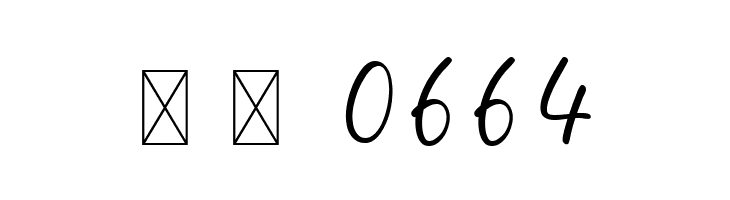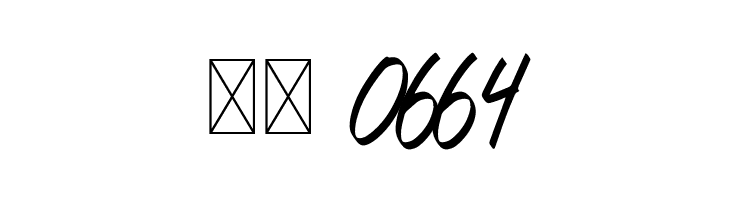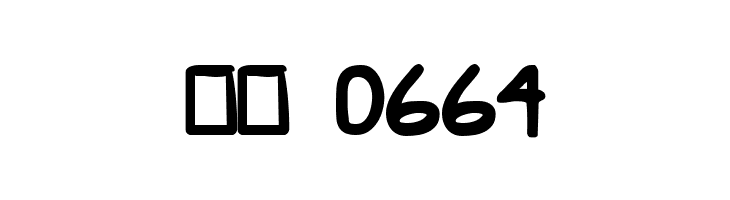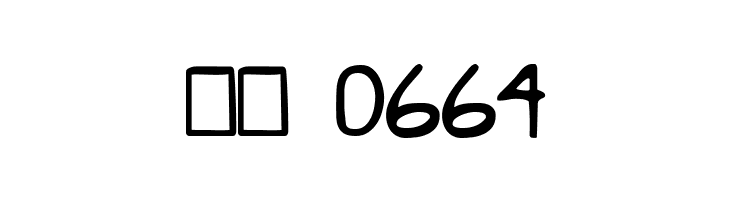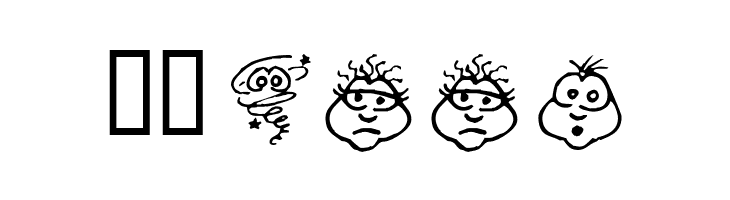
• Killing Me Free Trial
• Kilroy Was Here JL
A whimsical font featuring variations of the 'Kilroy Was Here' doodle for each character.
• Kimberley Alternate
• Kims Handwriting
• Kims Toons
Hand-drawn cartoon faces and animals in a dingbat style.
• KimsHand
A playful, handwritten font with smooth, rounded edges and a casual feel.
• KimsHand-Bold
A bold, playful handwritten font with rounded, consistent strokes.
• Kinderkinder
A decorative font made of cartoon children forming each character.
• KinderKinderAbsurdo
A decorative font made of cartoon children forming each letter and symbol.
• Kinderkram
A playful, hand-drawn font with cartoon-like characters.
• KinderUndAndereEngel
Whimsical silhouette illustrations of children, angels, and animals.
• Kindred Rosewood Free Regular
A decorative and ornate font with vintage flair, ideal for artistic projects.
• KindsonFree
A dynamic and expressive handwritten font with fluid strokes and natural flow.
• King Anakin 2
A bold, geometric font with sharp angles and a modern aesthetic.
• King City Free Font
A bold, elegant script font with flowing, cursive letterforms and a modern calligraphic style.
• King Of The Hill
A bold, cartoonish font with thick outlines and a playful, three-dimensional style.
• King Of The Hill 2
A bold, playful font with rounded, whimsical characters.
• Kirsty
• Kirsty Bold Italic
• Kirsty Ink
• Kirvy Bold
A modern, geometric sans-serif typeface with bold, uniform strokes.
• Kirvy Light
A modern, light sans-serif font with clean lines and geometric shapes.
• Kirvy Regular
A modern, geometric sans-serif font with clean lines and balanced spacing.
• Kirvy Thin